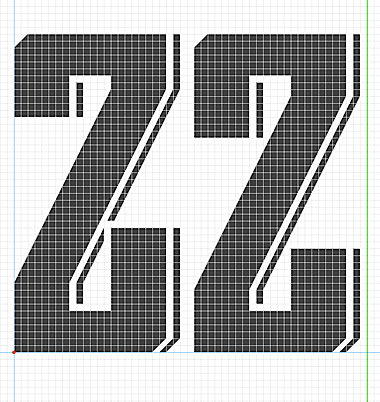
Prometheus Regular Shadow
by SquarePeg
I've added a side shadow to Prometheus Regular. The inspiration was a typeface from the French type foundry Peignot. Identified as "No. 1229" in their Lettres Fantaises of 1896, it sports a very fine side shadow, which I've attempted to re-create here. (I found the "No. 1229" sample on Hoefler & Frere-Jones' blog - fifth image from the top.)
May the whole Prometheus Family continue to grow and prosper. The introduction of the hairline shadow is fantastic. Well done Mr. Peg.
After the mammoth task of re-sizing the two existing weights, Prometheus Shadow has been a kind of warm-up exercise for the two remaining weights I have planned. I am already working on the new Bold weight.
By the way, here's the sample that inspired Prometheus Shadow:
Nice. Compared to the sample, I really like what you did with the 'E' and 'F'.
Thanks. Prometheus itself is based on a typeface known as Grecian Condensed, of which there are different versions. And of course, I've had to adapt the original shapes to the FontStruct grid... the most notable difference is in the way I constructed the capital M and N.
I think the 'M' and 'N' of Grecian Condensed become too black in the diagonals but with Prometheus, the limitations of the Fontstruct grid force a more uniform approach.
Excellent execution of the shadow, Ricardo. Nice character set too. I think its the first to break the FS generator by the sheer number of glyphs.
Update: I just set the space character for Prometheus Shadow (Basic Set and Extended Set).
Another update: I've improved some of the lowercase characters. The z is a good example; here's a before-and-after image.
A small update: I fixed an incomplete shadow in the uppercase K, which I only noticed today, while I was working on a new weight of the Prometheus family.
Another small update: on certain diacritical marks, the hairlines were drawn as drop shadows rather than side shadows. A very minor inconsistency, but once I'd noticed it, I just had to fix it!
I don't know why this is down to 7.9. It's one of the most elaborate fontstructions and one of my all time favorites. It should be higher than 9, really.